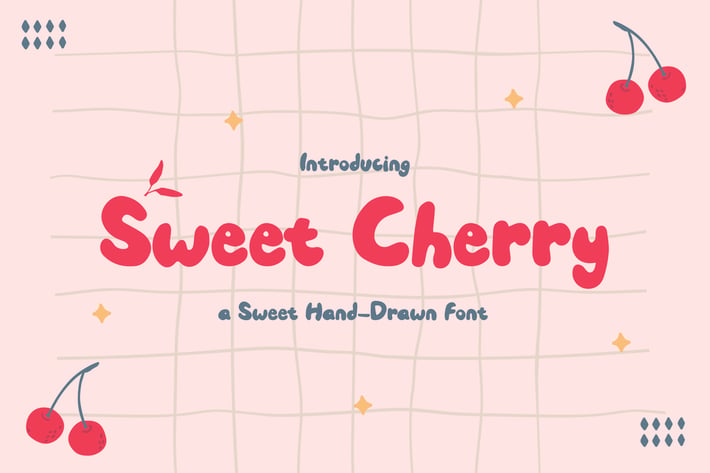
Sweet Cherry – a Sweet Hand-Drawn Font
Sweet Cherry is a Sweet display and bold handwritten font. Playful and fresh, this font will be a hit for each of your children or school projects!